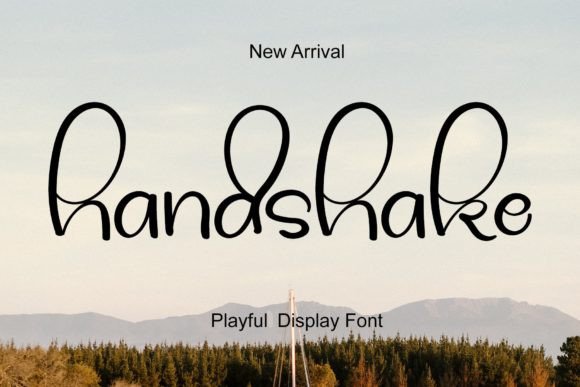
**Handshake Font - The Dance of Letters, A Spark of Luxury**
In a world of digital expression, your words deserve a touch of elegance, a whisper of charm, a spark of luxury. Handshake Font, a beautiful script font, is your gateway to a world of captivating designs, adding a touch of sophistication to your every creation.
Picture the graceful lines of Handshake Font, dancing along the baseline, infusing your designs with a sense of whimsy and delight. Its characters, meticulously crafted, possess a life of their own, adding a touch of exclusivity and allure to your projects.
**Why Handshake Font?**
- **Unleash Your Creativity:** Let Handshake Font ignite your imagination. Create stunning logos that command attention, design invitations that exude elegance, and craft social media posts that radiate charm. Handshake Font is your creative ally, helping you turn your design dreams into reality.
- **Convey Warmth and Personality:** With its playful, dancing characters, Handshake Font breathes life into your designs. It's perfect for projects that demand a personal touch, conveying warmth and authenticity. Let your designs reflect your unique personality, leaving a lasting impression on your audience.
- **Stand Out from the Crowd:** In a sea of ordinary fonts, Handshake Font stands tall, a beacon of originality. Its distinctive style ensures that your designs will never blend into the background. Make a statement, captivate your audience, and leave them craving more.
**The Perfect Font for Merry Christmas**
The magic of Christmas deserves a font that captures its spirit, and Handshake Font delivers. Its enchanting characters will dance across your Christmas cards, gift tags, and decorations, spreading joy and warmth. Create designs that evoke the nostalgia of childhood, the excitement of gift-giving, and the love that binds families together.